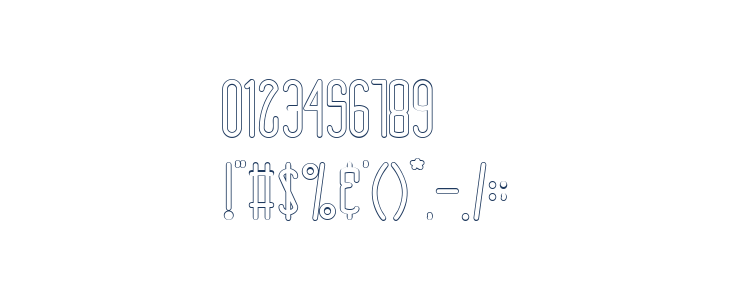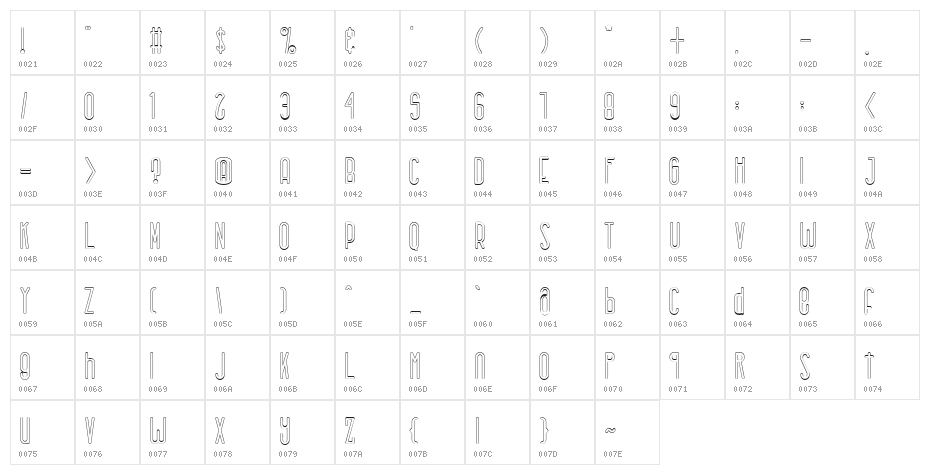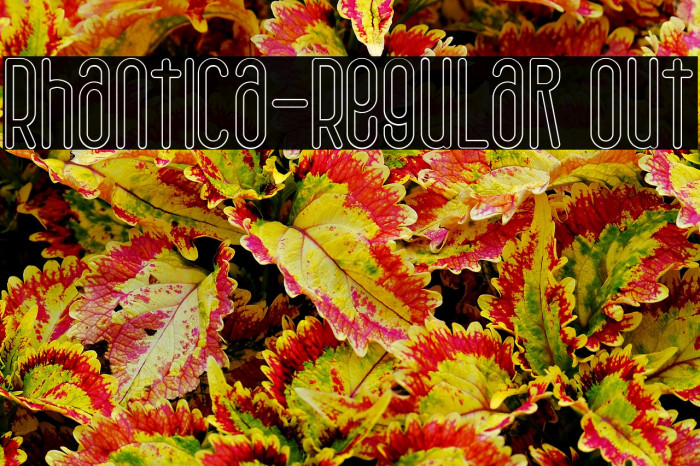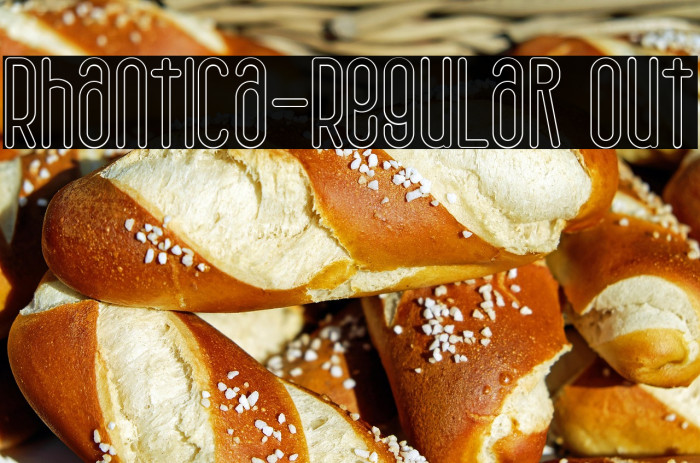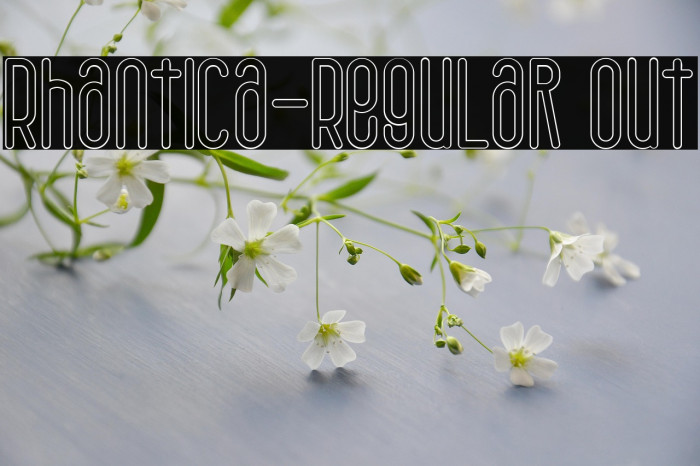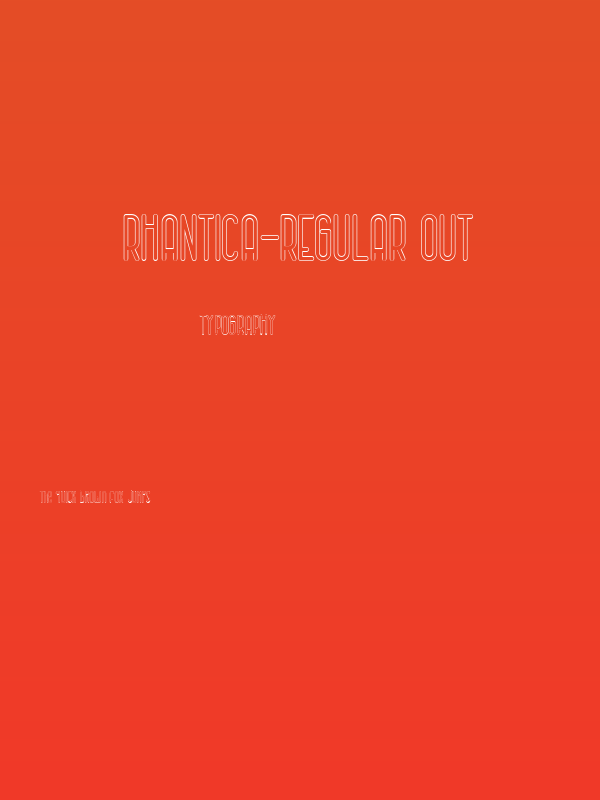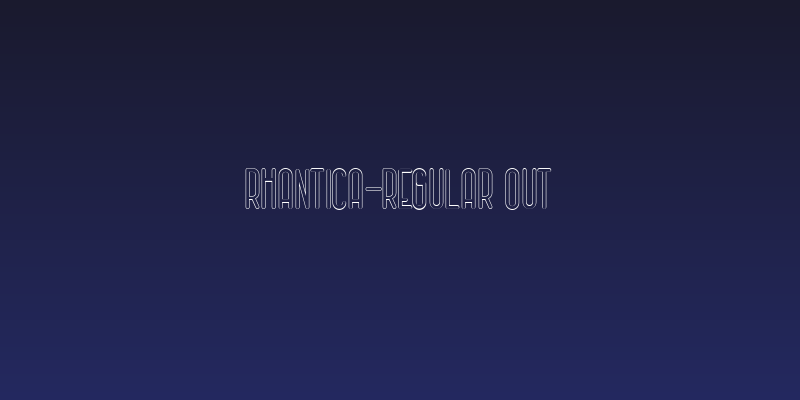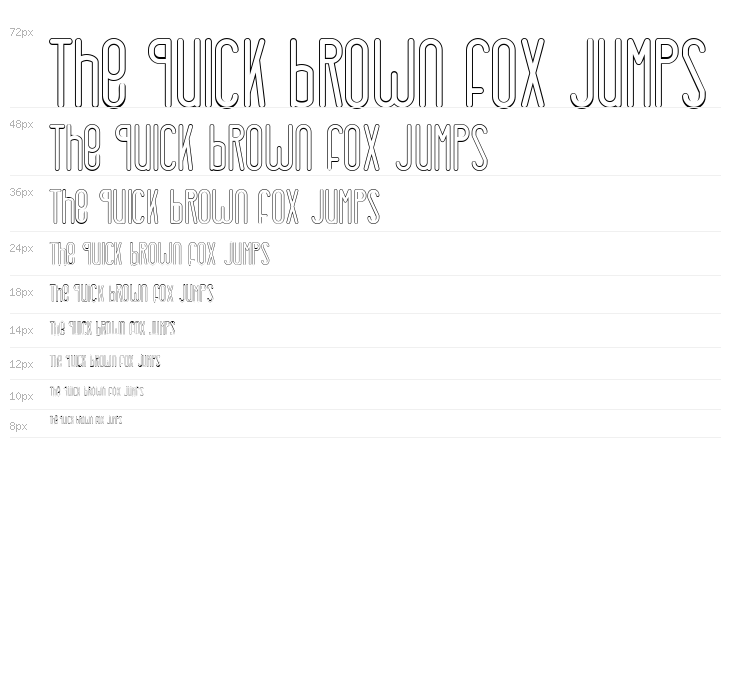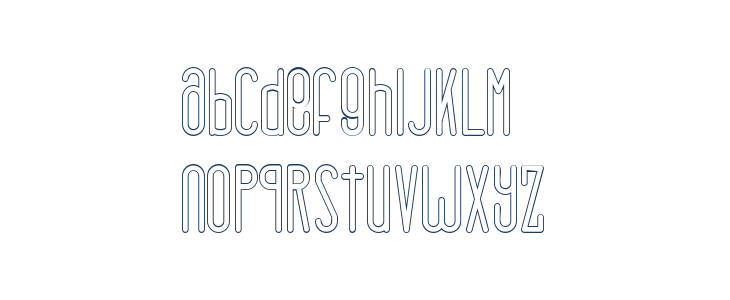
Rhantica-Regular Out Font
Rhantica-Regular Out Description
This font features a modern and sleek design with a hollow, outlined appearance. The characters are tall and narrow, giving a condensed look that maintains readability. The uniform stroke width throughout the letters provides a clean and minimalist aesthetic. The uppercase and lowercase letters share a consistent style, with rounded edges that soften the overall geometric structure. The numerals and special characters follow the same design principles, ensuring a cohesive look across all elements. This font's unique outline style makes it stand out, offering a contemporary twist on traditional sans-serif fonts.
| Proposed Projects | Ideal for branding, posters, and digital media where a modern and distinctive look is desired. |